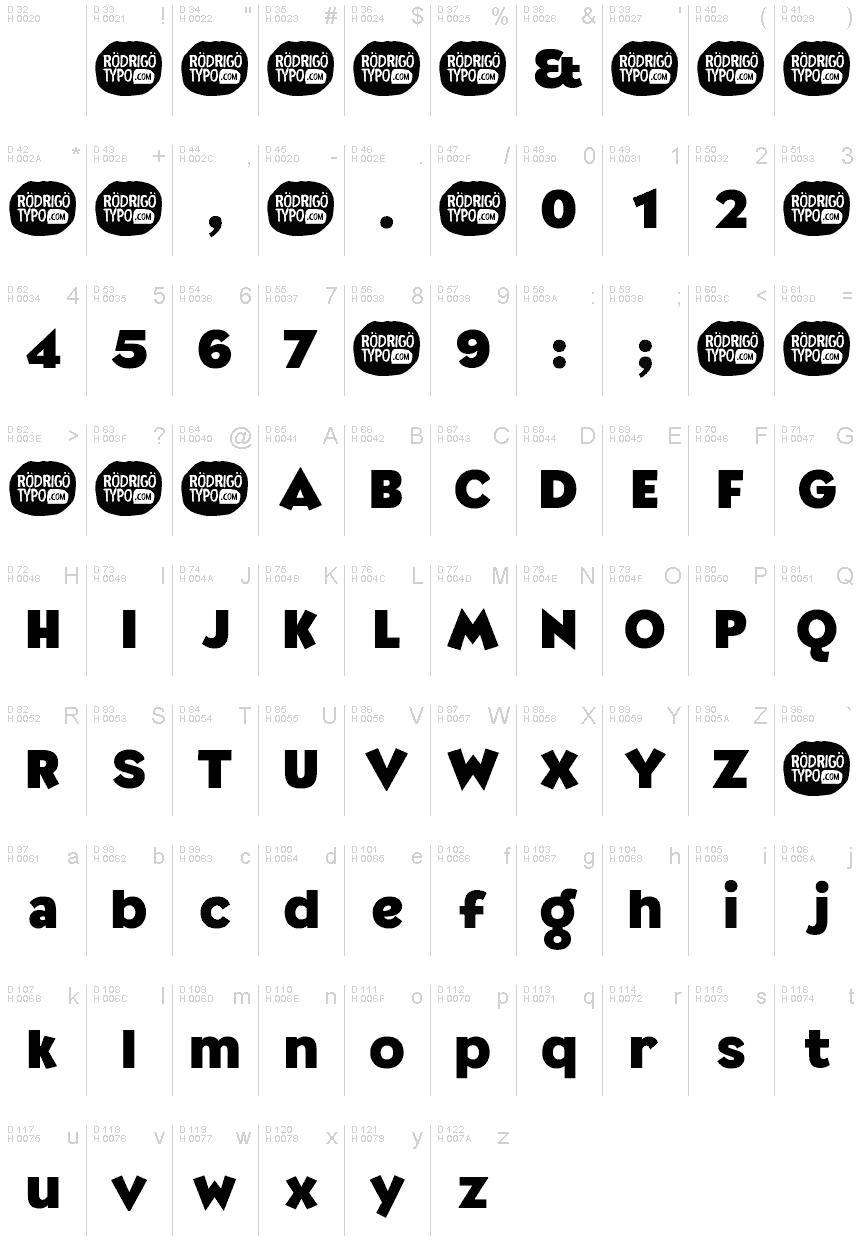
Minnie Regular
Minnie, a captivating display font crafted by the talented designer RodrigoTypo, effortlessly blends playful whimsy with bold elegance. This cartoon-inspired typeface exudes a sense of warmth and charm, making it an ideal choice for branding, packaging, and children's media.
The striking, rounded letterforms and distinct stroke variations lend Minnie a unique, hand-drawn aesthetic, evoking a delightful sense of nostalgia. The font's bold weight and playful curves ensure it commands attention, making it a versatile option for headlines, logos, and eye-catching design elements.
Minnie's versatility extends across a wide range of applications, from cheerful event invitations and playful product packaging to captivating children's book illustrations and dynamic social media content. Its captivating personality seamlessly elevates any design, ensuring a memorable and engaging visual experience.
Authors: Rodrigo Araya Salas + Andrey Kudryavtsev
Concept: Minnie is a typeface focused on children's